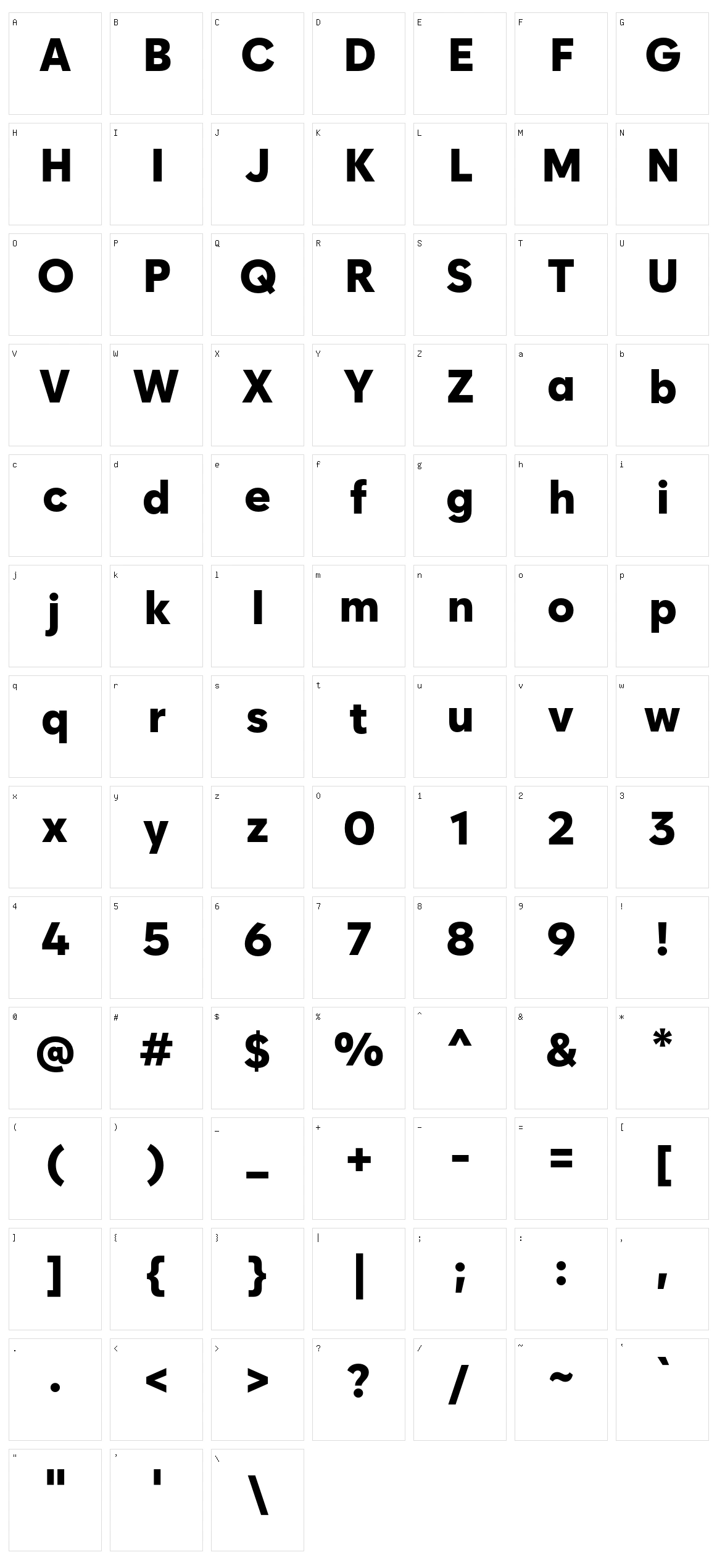
The free font Zabal is carefully designed by Font People, showcasing a thoughtful balance of creativity and usability and falls under the Sans serif font style. When you download the ZIP file, it contains only 616.25 KB of font files, making it lightweight and quick to download. Please review the license details below to understand permitted usage and distribution rights. If license information is not available, we recommend using this font for personal projects only or contacting the author directly for commercial usage permissions.